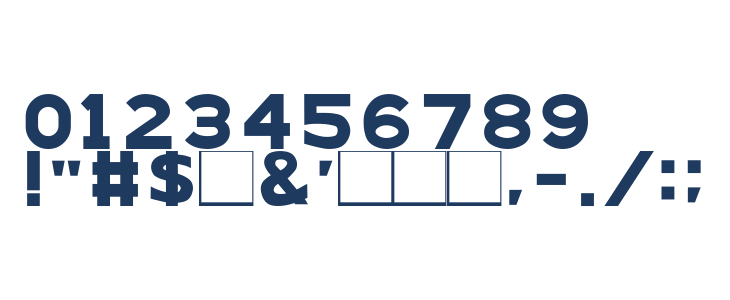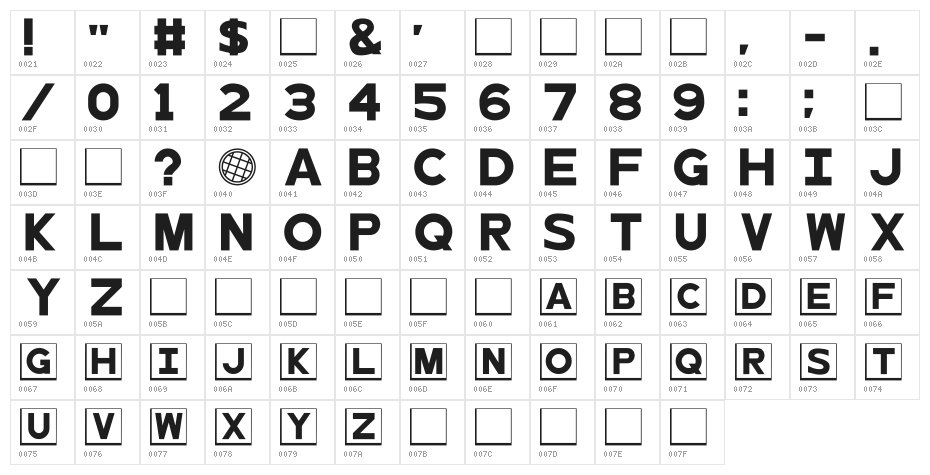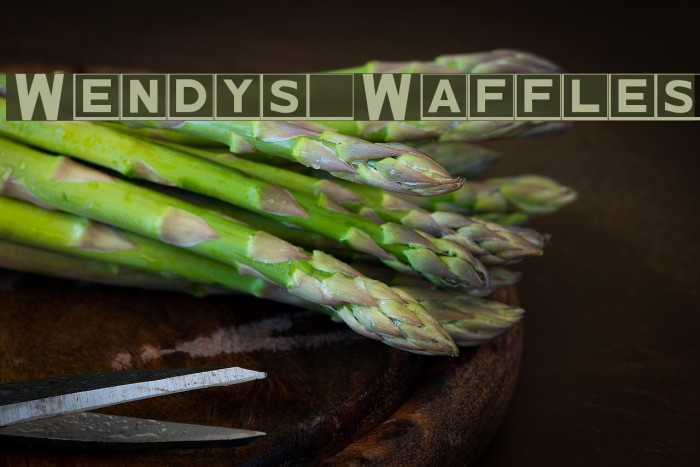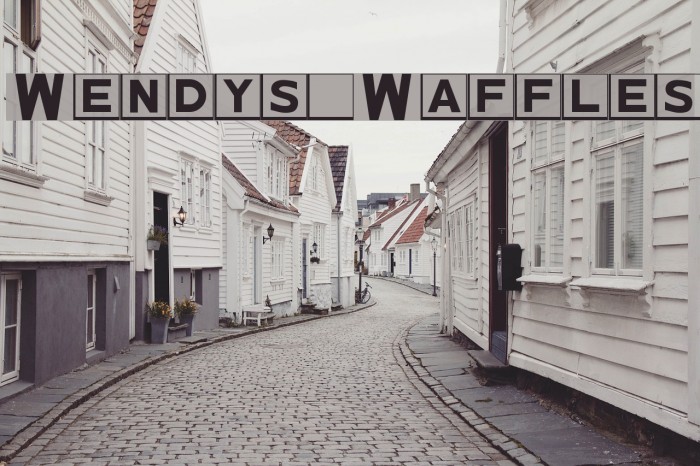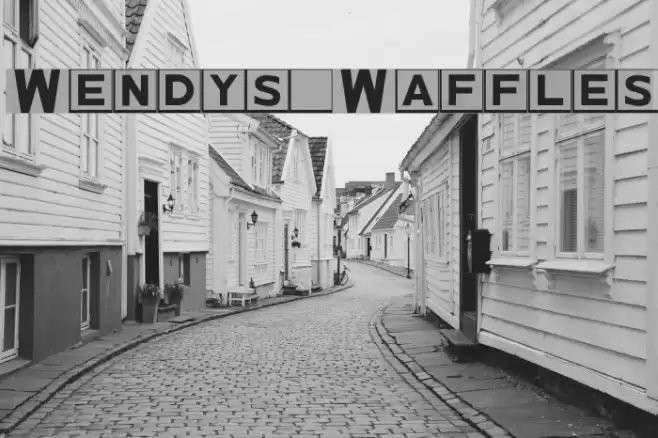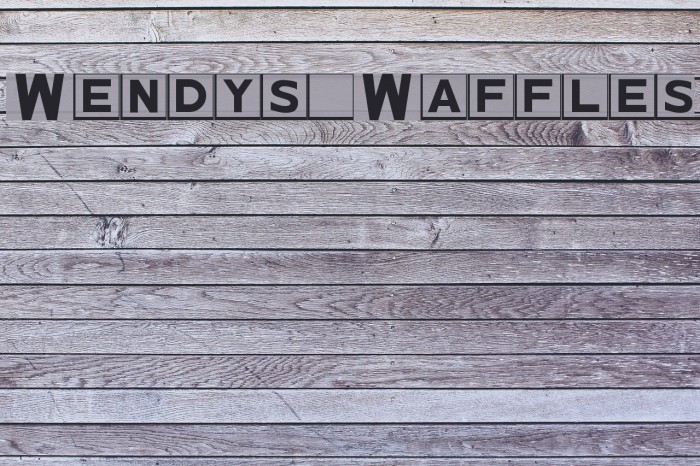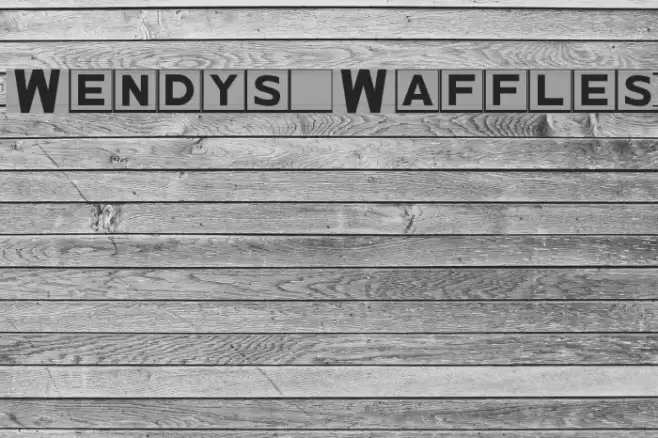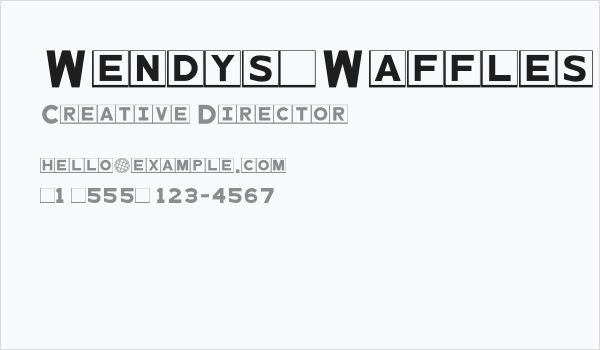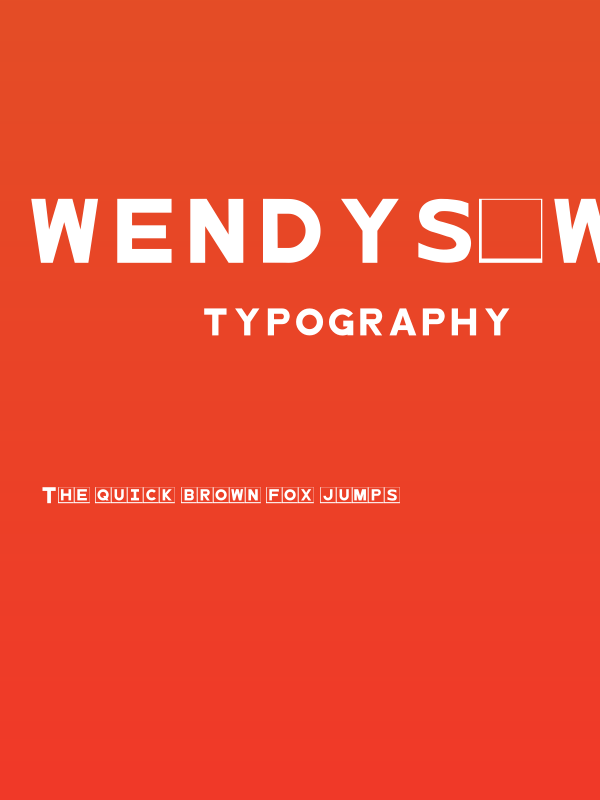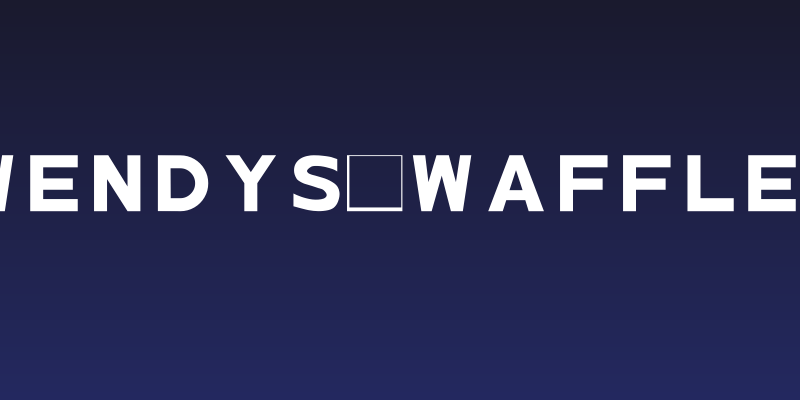
Wendys_Waffles Font
Wendys_Waffles Description
This font features bold, geometric letterforms with a strong presence, making it ideal for impactful designs. The uppercase letters are uniform in height and width, creating a cohesive and structured appearance. The numbers and special characters maintain the same boldness, ensuring consistency across all text elements. The font's clean lines and lack of serifs give it a modern and straightforward look, suitable for a variety of design applications. Its versatility is enhanced by the inclusion of boxed versions of the uppercase letters, adding a unique stylistic option for designers.